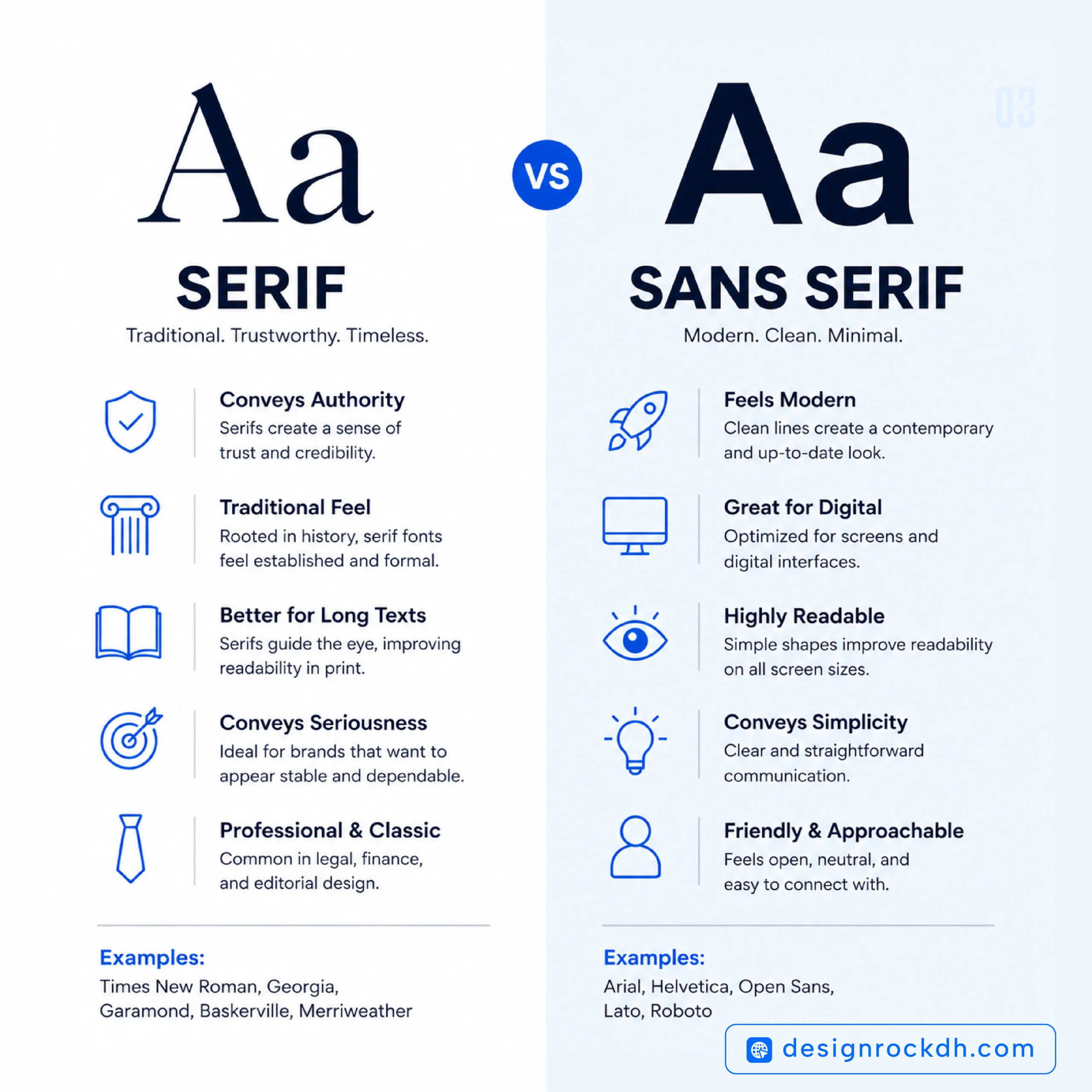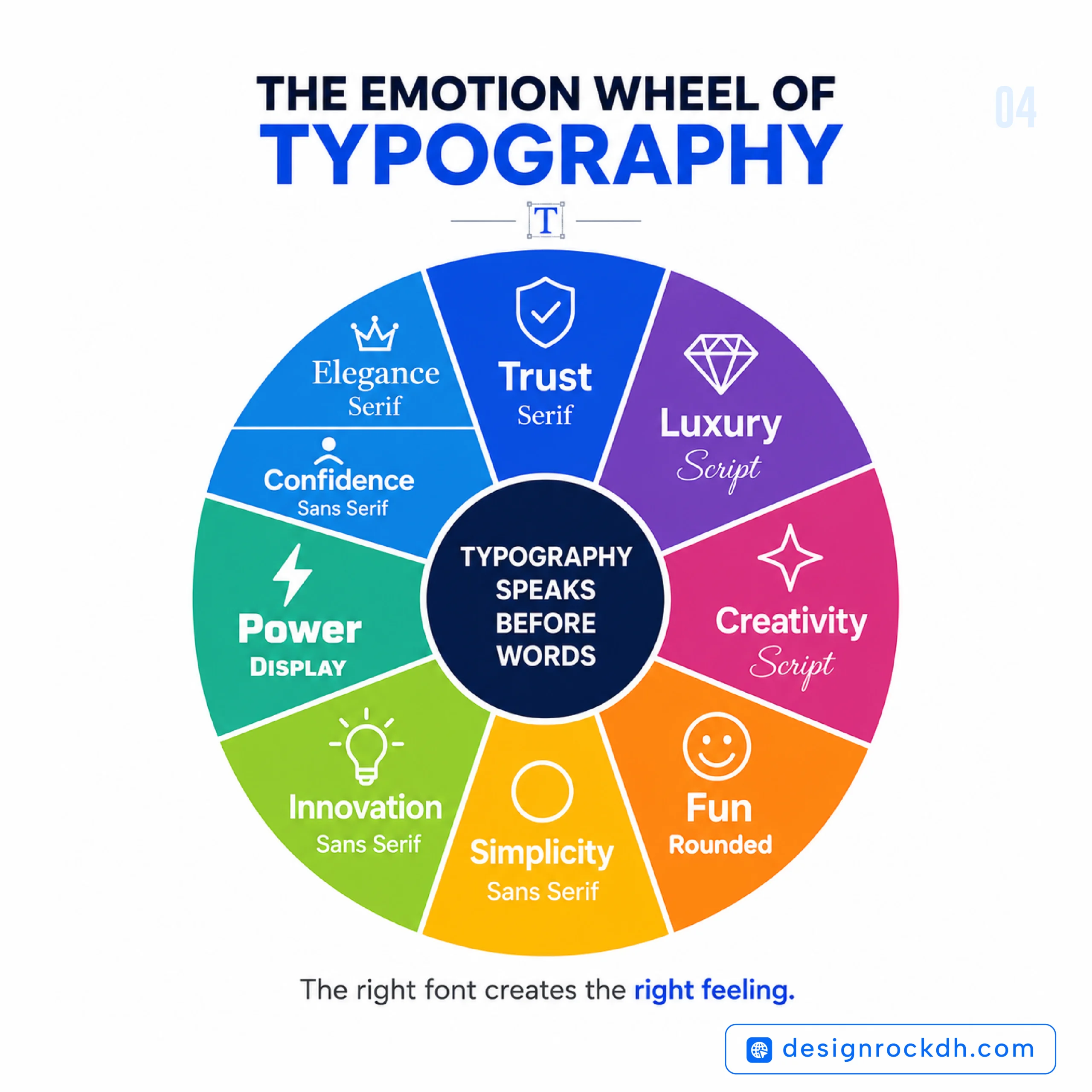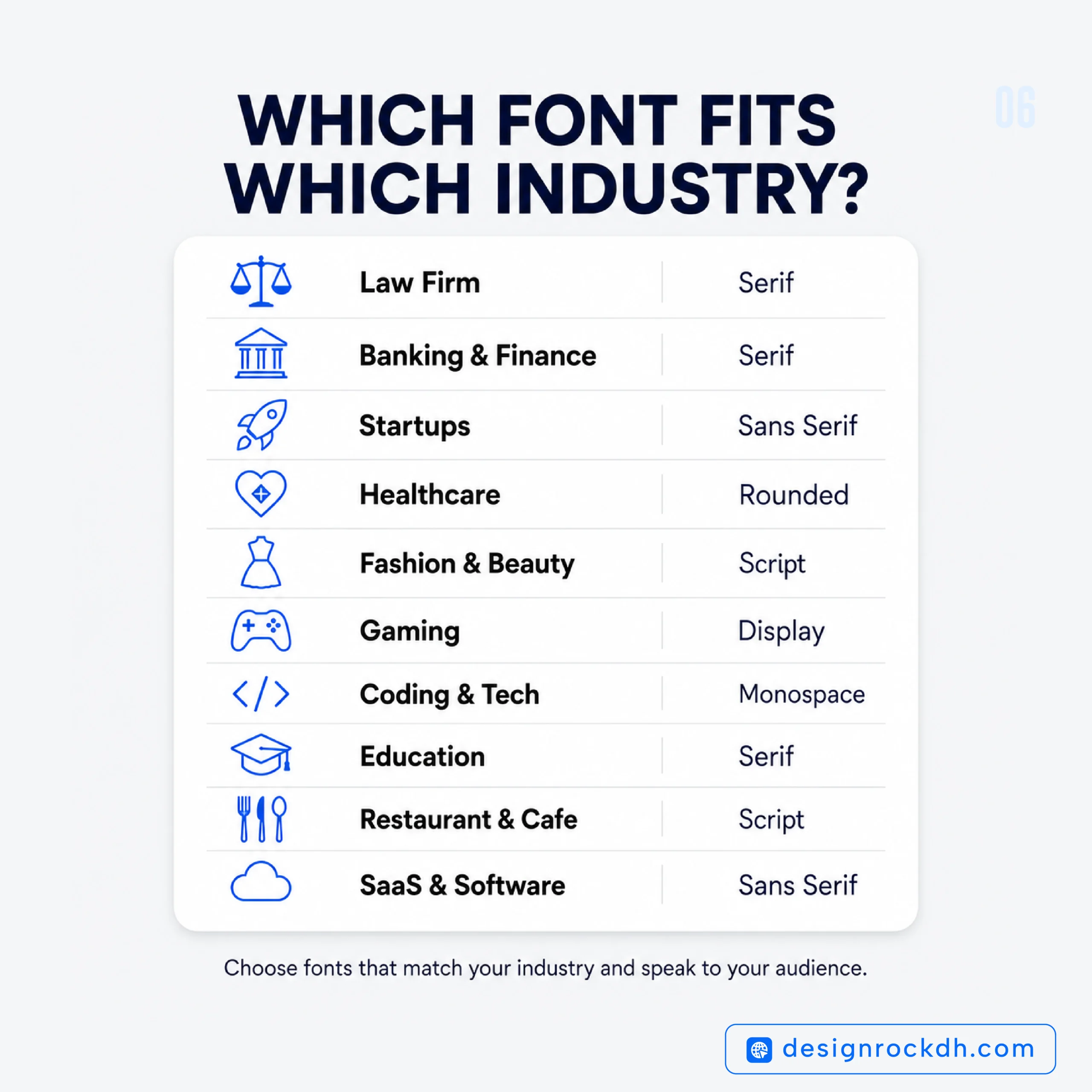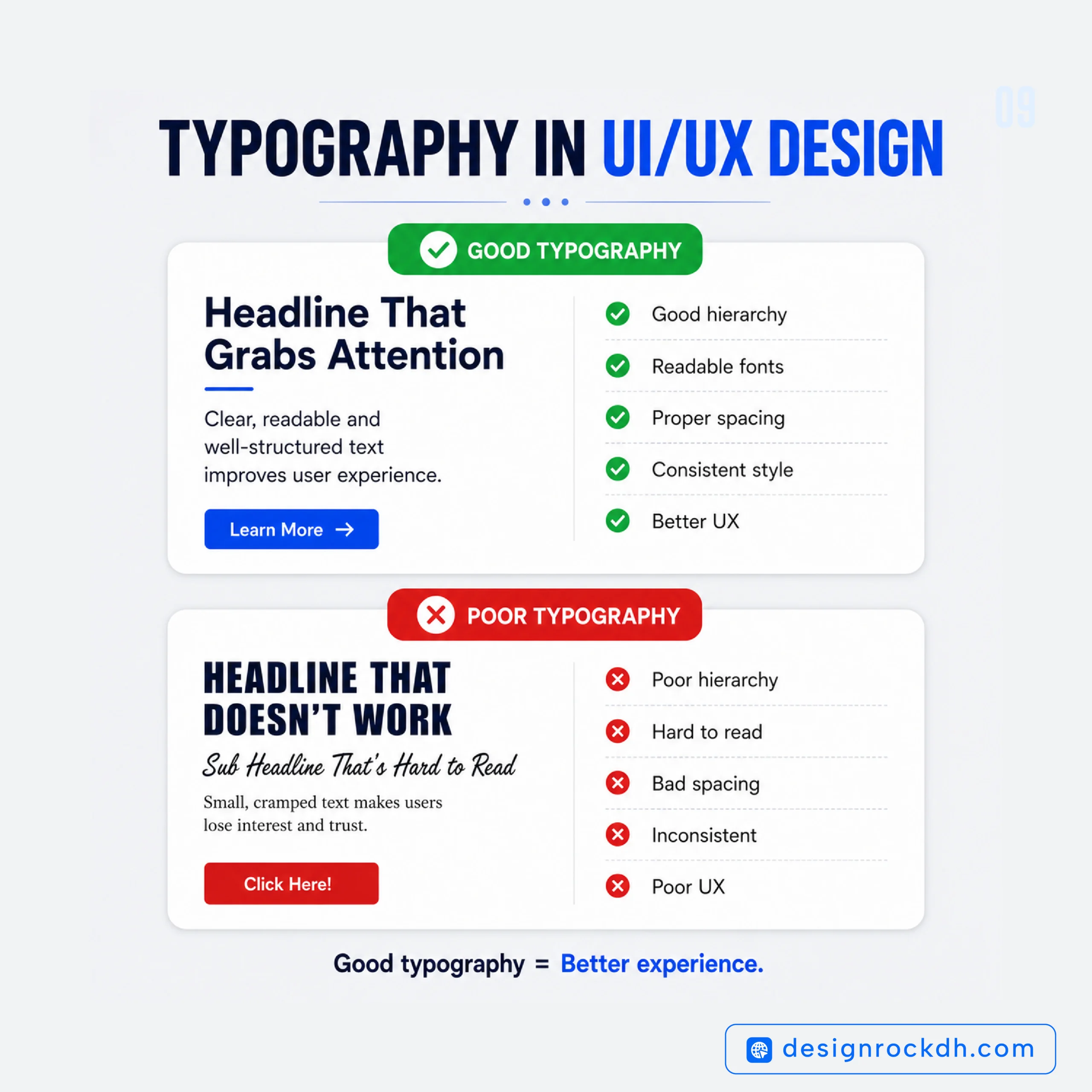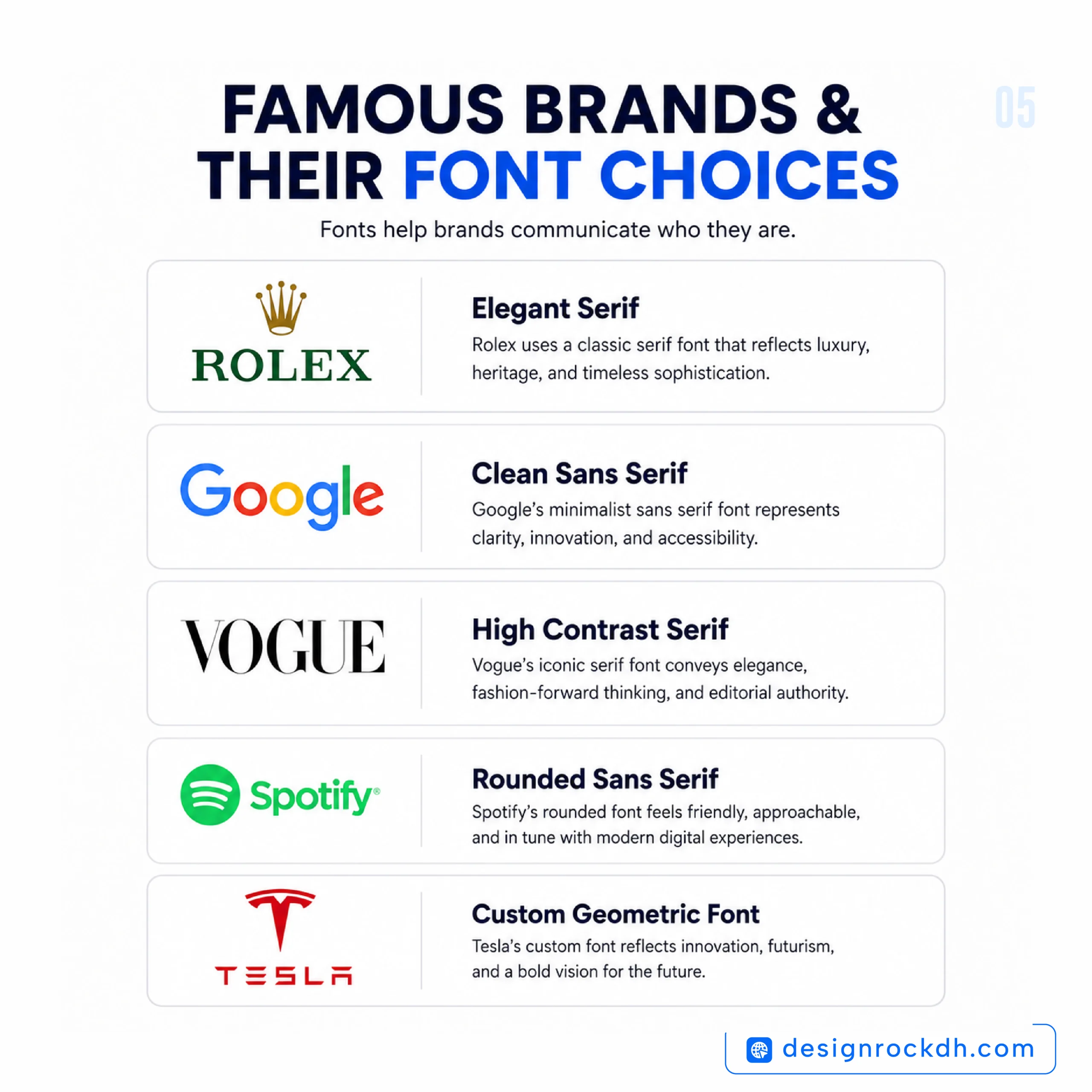
Think about the last time you visited a luxury brand’s website. Chances are, you noticed elegant typography that felt refined and timeless. Now compare that to the clean, minimal fonts used by most technology companies. Even before reading a single word, you probably formed an impression about each brand.
That isn’t a coincidence—it’s font psychology at work.
Typography is far more than a design element. Every font carries subtle emotional signals that influence how people interpret information, judge credibility, and connect with a brand. Whether you’re designing a website, creating a logo, publishing a blog, or launching a marketing campaign, the fonts you choose can shape your audience’s perception long before they process your message.
Research in branding, marketing, and user experience consistently shows that typography affects trust, readability, engagement, and even purchasing behavior. A well-chosen typeface reinforces your message, while the wrong one can create confusion or weaken your brand identity.
In this guide, you’ll discover how different font styles influence emotions, which typefaces work best for specific industries, and how to use typography strategically to create stronger designs and better user experiences.
What Is Font Psychology?
Font psychology is the study of how typefaces influence the way people think, feel, and respond to written content. Although the words remain the same, presenting them in different fonts can completely change how they’re perceived.
Imagine the phrase “We value your trust.”
Displayed in a traditional serif font, it feels established and dependable. Presented in a sleek sans-serif typeface, it appears modern and approachable. Written in a decorative script, it might feel elegant—but perhaps less suitable for a financial institution.
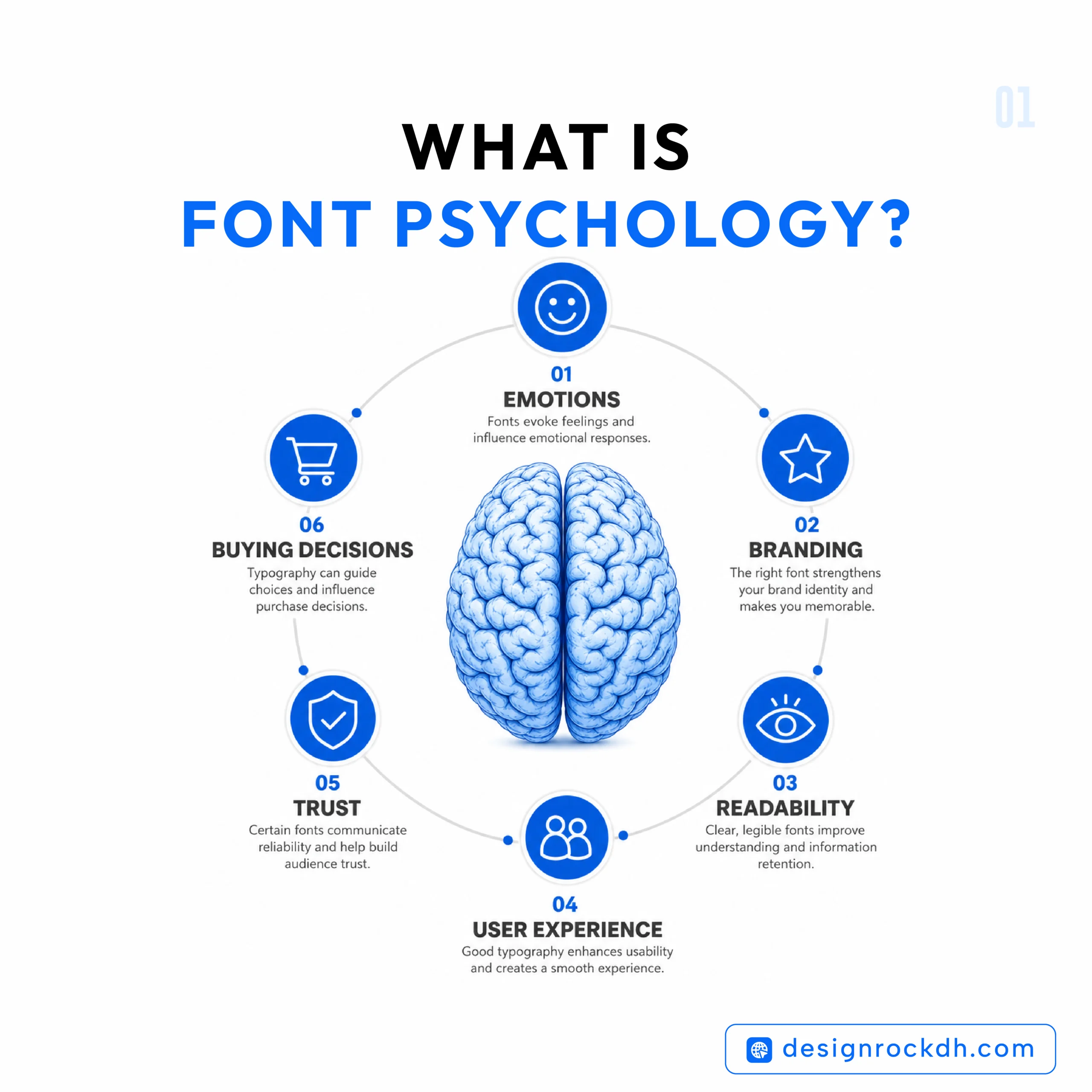
These reactions happen almost instantly because our brains associate certain font styles with familiar experiences.
For example:
- Serif fonts often remind us of books, newspapers, and academic publications.
- Sans-serif fonts are closely linked to technology, apps, and modern digital products.
- Script fonts evoke handwritten invitations, luxury branding, and personal expression.
- Bold display fonts are commonly associated with advertising, entertainment, and sports.
These visual associations influence first impressions before readers consciously evaluate the content itself.
Why Font Psychology Matters
Typography isn’t just about making text attractive—it plays a critical role in communication.
The right font can help people trust your brand, understand your message more easily, and remember what they’ve seen. Poor typography, on the other hand, can make even high-quality content feel unprofessional.
Here’s why font psychology deserves attention:
1. It Creates Powerful First Impressions
People form opinions about websites and brands within moments. Typography contributes significantly to that initial judgment, alongside color, imagery, and layout.
2. It Reinforces Brand Personality
Every brand has a voice. Typography helps express whether that voice is traditional, innovative, luxurious, playful, professional, or approachable.
3. It Improves Readability
Beautiful typography means little if readers struggle to absorb the content. Choosing fonts designed for readability improves the overall user experience, especially on digital screens.
4. It Builds Trust
Financial institutions, universities, healthcare organizations, and legal firms often select fonts that communicate stability and authority because trust directly impacts decision-making.
5. It Supports Marketing Performance
Typography affects how advertisements, landing pages, product packaging, and promotional materials are perceived. Small design choices can influence click-through rates, conversions, and customer confidence.
Simply put, typography isn’t decoration—it’s communication.
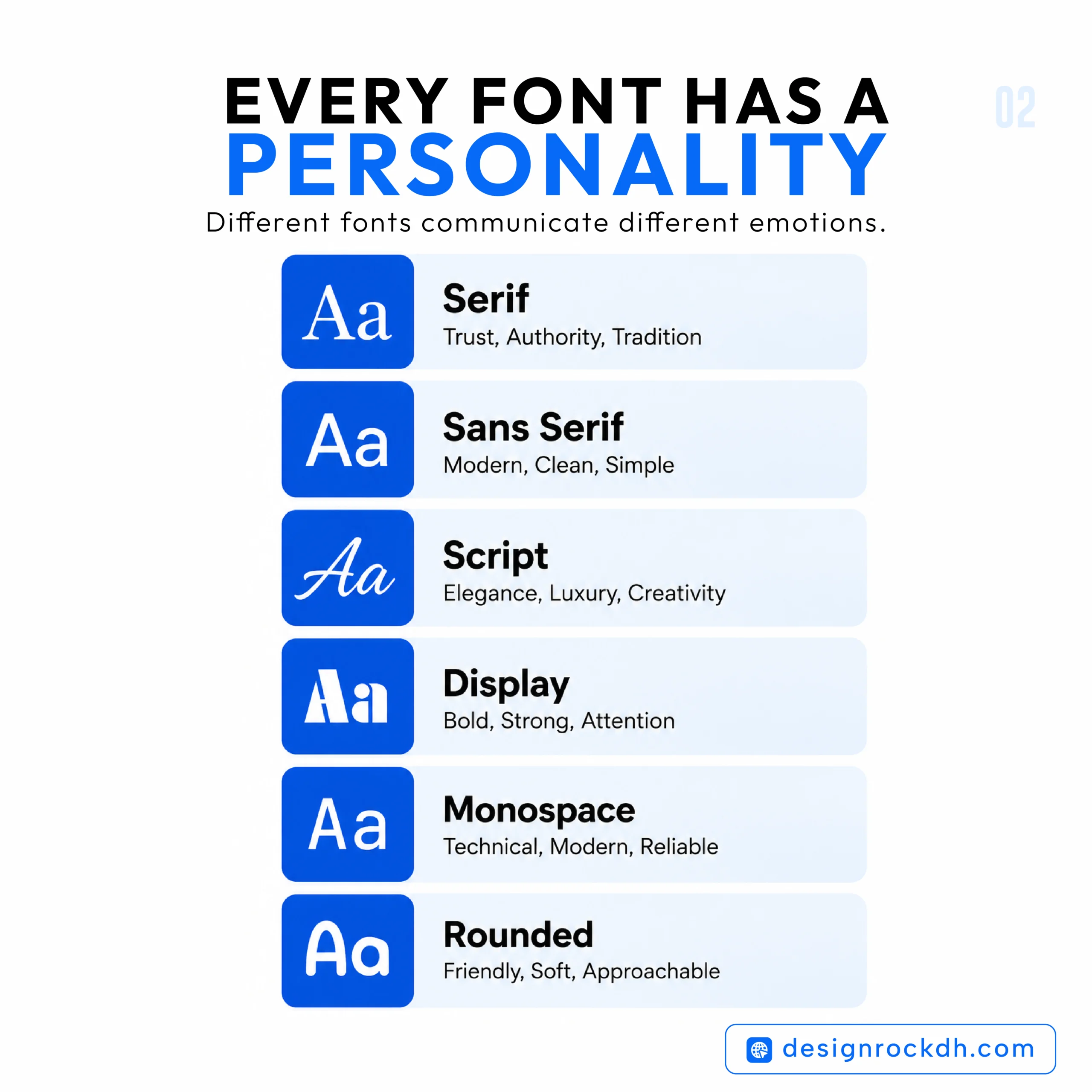
Serif Fonts: Tradition, Trust, and Authority
Serif fonts are among the oldest and most recognizable typography styles. Their small decorative strokes, known as “serifs,” give them a classic appearance that’s often associated with credibility and heritage.
Popular Serif Fonts
- Merriweather
- Playfair Display
- Garamond
- Baskerville
- Times New Roman
- Cormorant Garamond
Psychological Associations
Serif fonts typically communicate:
- Trustworthiness
- Professionalism
- Reliability
- Sophistication
- Heritage
- Stability
Because readers have encountered serif fonts in books, newspapers, and academic publications for generations, they naturally associate them with authority and knowledge.
That’s one reason why universities, newspapers, law firms, and luxury brands continue to use serif typography.
Where Serif Fonts Work Best
Serif fonts are ideal for:
- Editorial websites
The next time you select a typeface, remember that every curve, stroke, and letter shape influences how people perceive your work.
Great design begins with thoughtful typography.